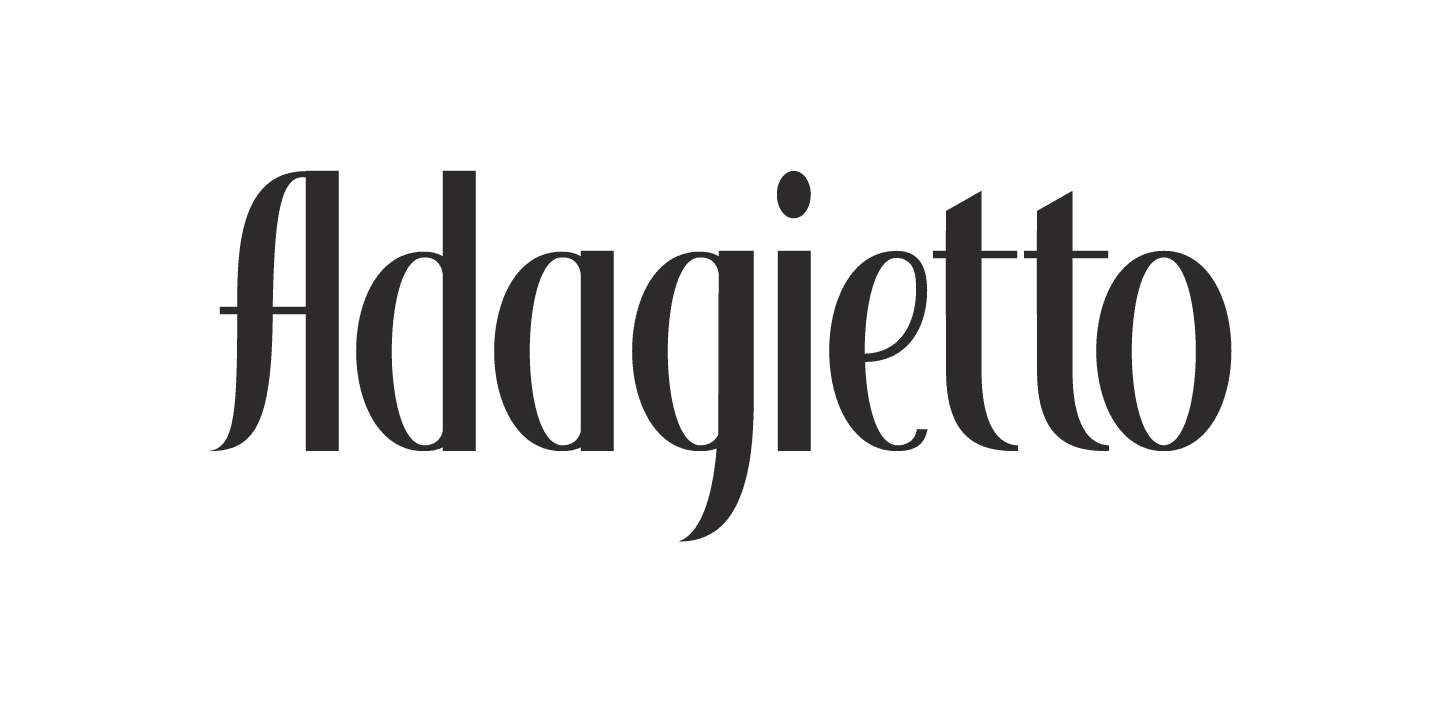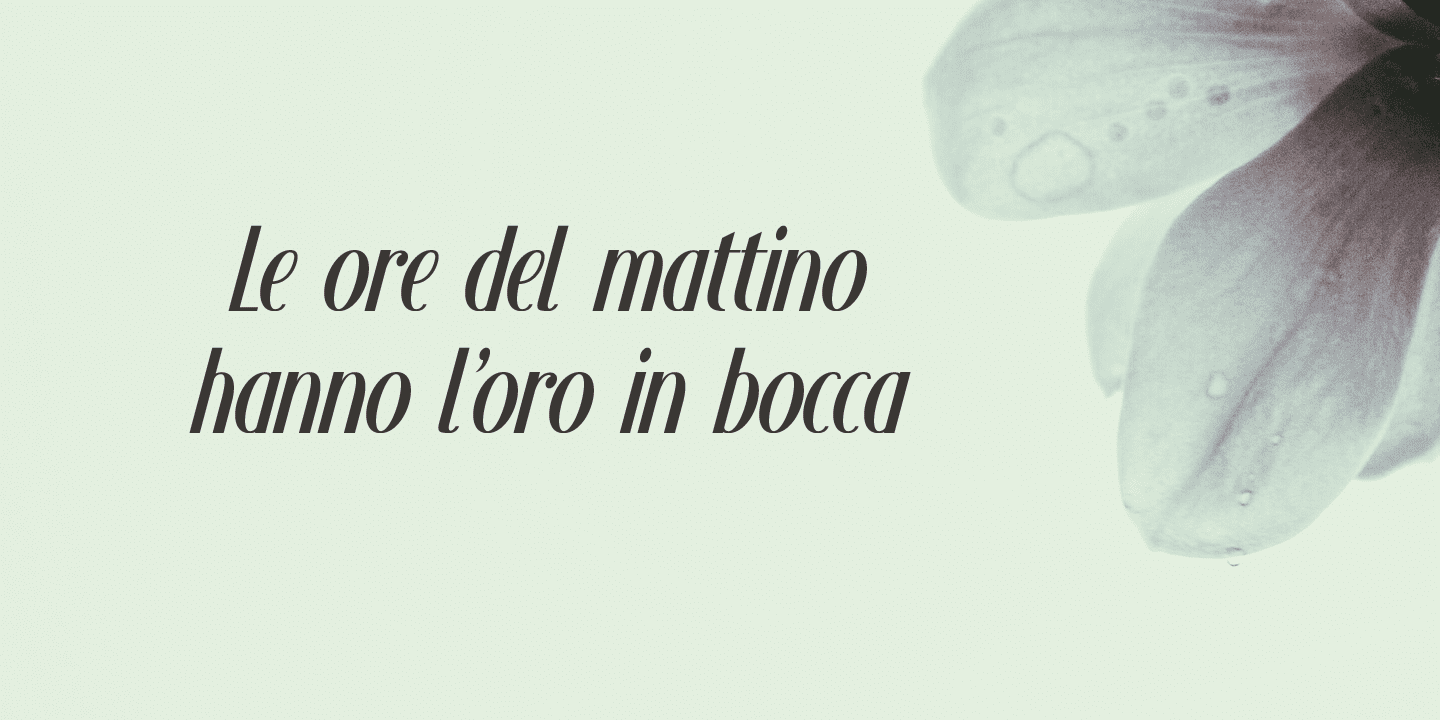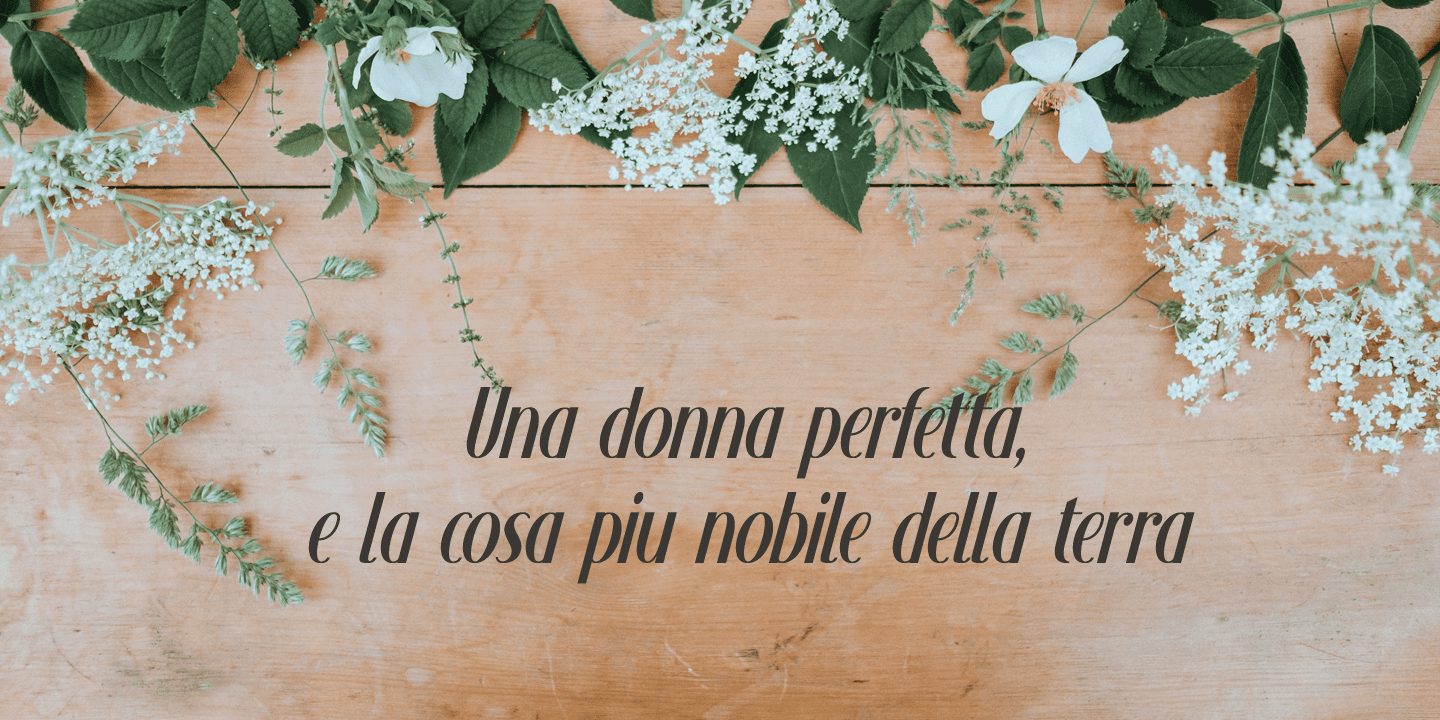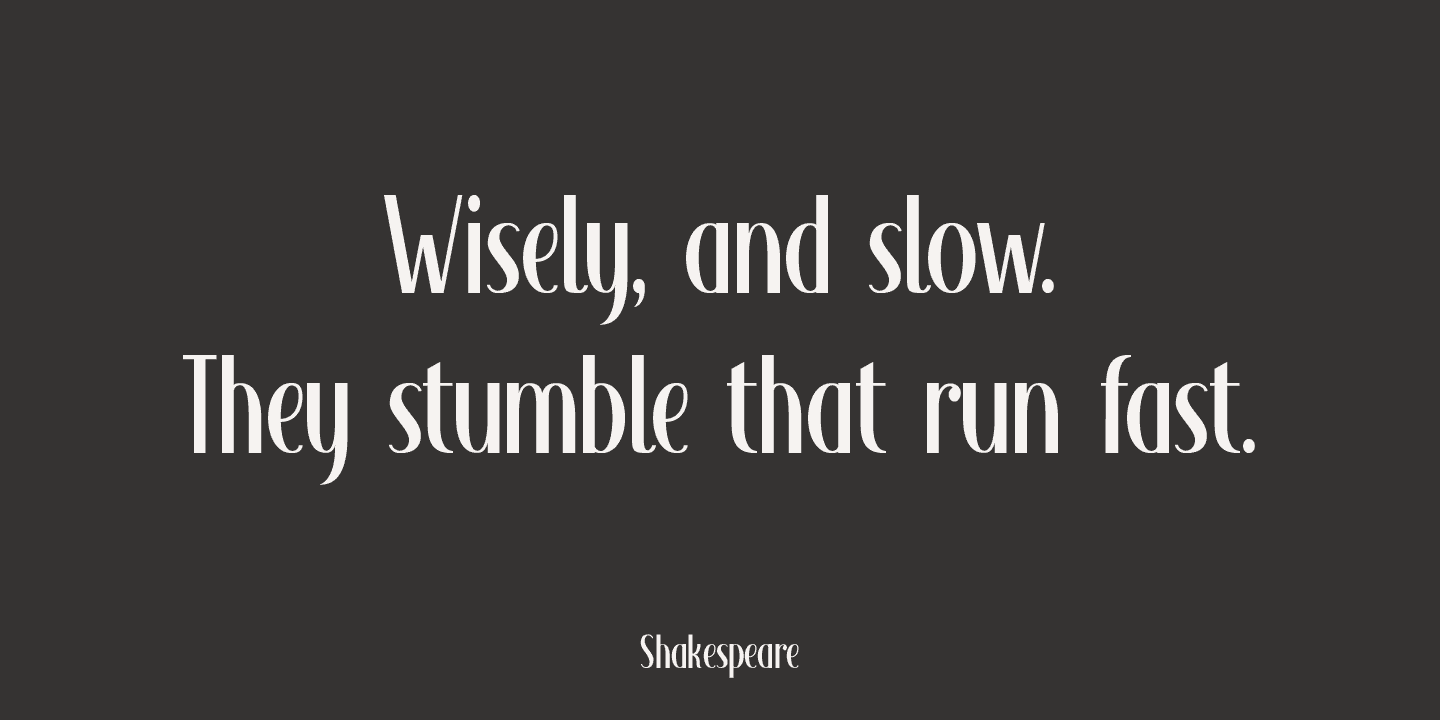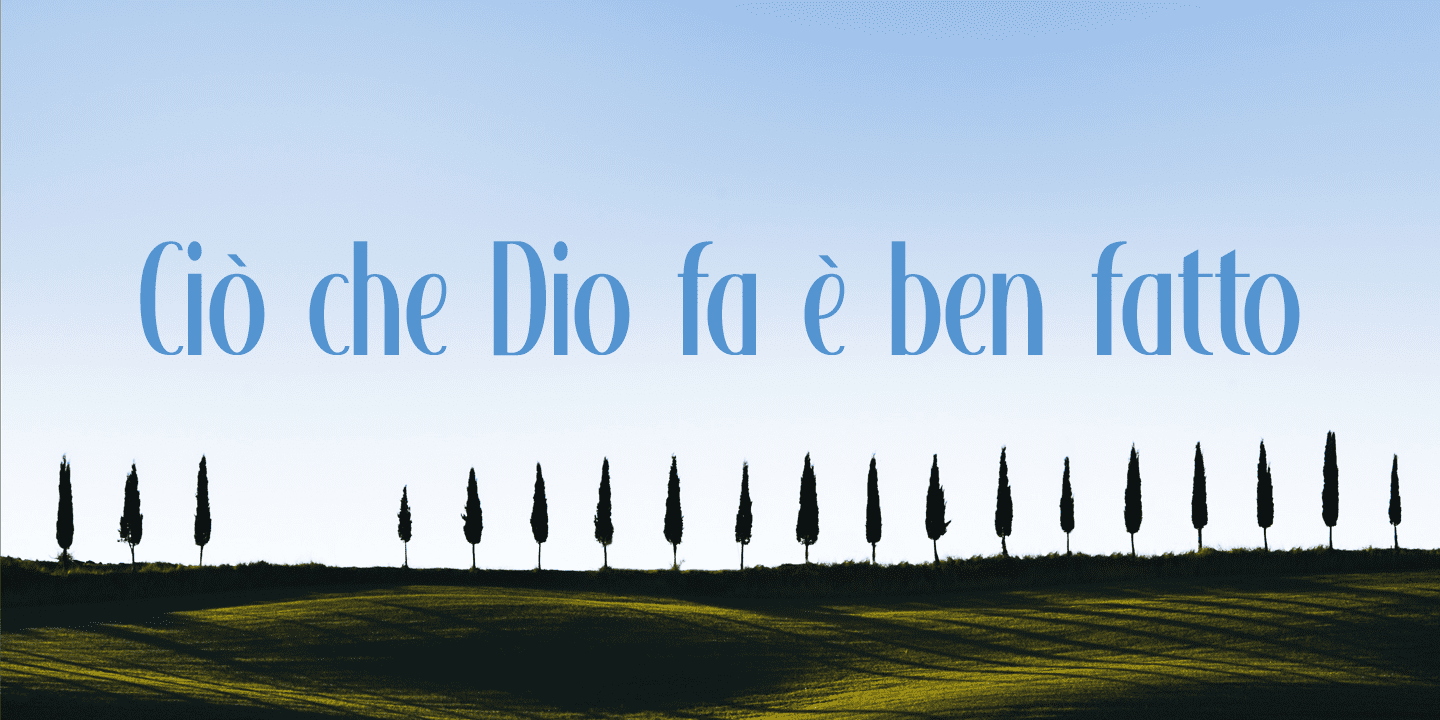
Adagietto Family (2 fonts)
Adagietto is a classic font, ideally suited for posters, book covers and product packaging - and just about everything that needs a classy look.